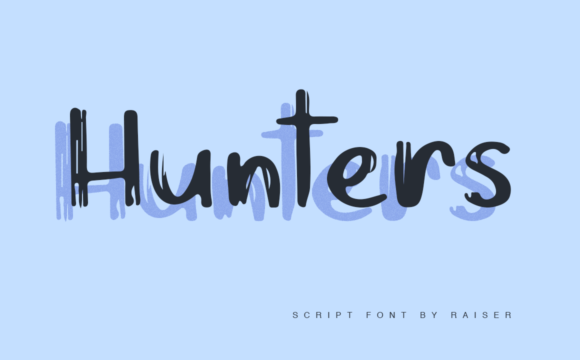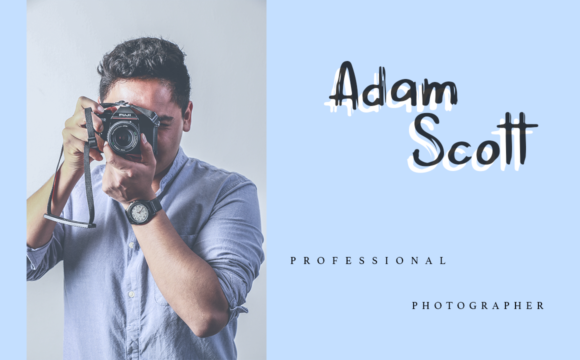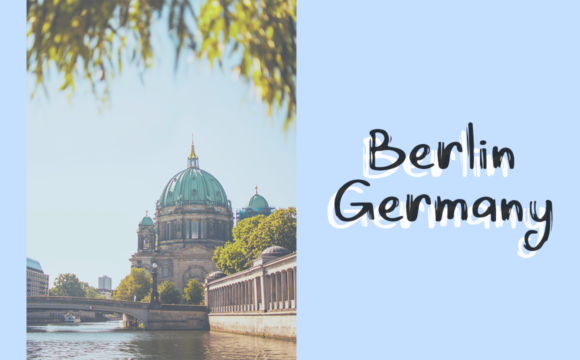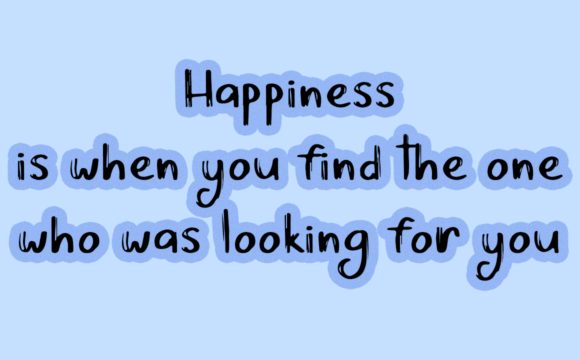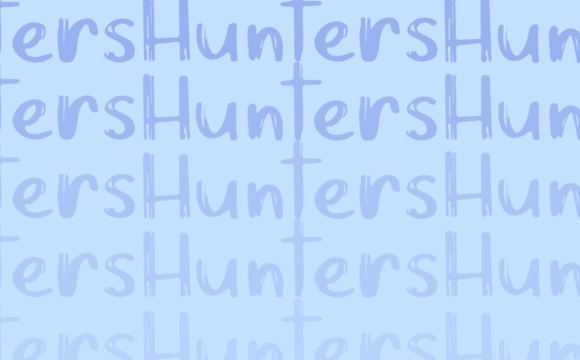
HomeScript FontsHunters Font Script Fonts Hunters Font FacebookXPinterestWhatsApp Hunters Font Poster 2 Hunters Font Poster 3 Hunters Font Poster 4 Hunters Font Poster 5 About Hunters Font Hunters is a stylish and simple script font with an incredibly authentic approach to lettering. DOWNLOAD ON CREATIVE FABRICAThis font is sold and delivered by Creative Fabrica. Font Canyon may earn a commission if you buy through this link. People also explored Mideo Font Mothers Power Font Heavenly Script Font Obligod Black Font Andara Font Bunkyo Font Barbara Script Font Male Burnt Orange Bella Canvas 3001 Hai Meteo Font 301 0 TagsHunters Font Previous articleDellingstone FontNext articleSelf-Deception Font LEAVE A REPLY Cancel reply Comment: Please enter your comment! Name:* Please enter your name here Email:* You have entered an incorrect email address! Please enter your email address here Website: Save my name, email, and website in this browser for the next time I comment. Personal Use Free Stentiga Personal Use Free Read more about this font Callisa Script Personal Use Free Read more about this font Sweety Blue Personal Use Free Read more about this font Time for Presents Personal Use Free Read more about this font BLOG Using Fonts in Digital Marketing: Tips to Strengthen Your Brand Identity In the realm of digital marketing, every visual element plays a crucial role in shaping a brand's identity, and fonts are no exception. The... Fonts That Capture the Spirit of New York City Modern Sans-Serif Fonts That Brands Love in 2025 Best Fonts for T-Shirt Design – Top 2025 Picks